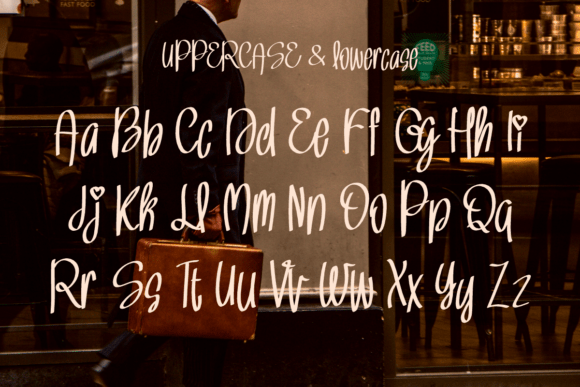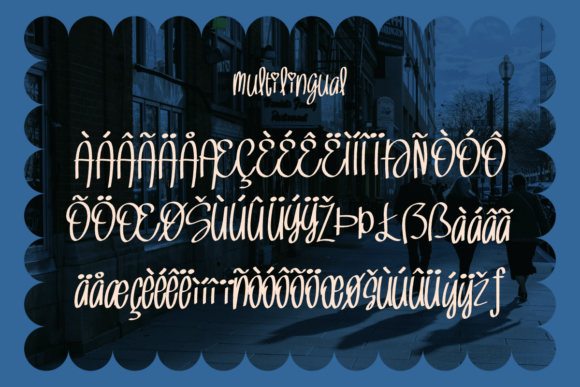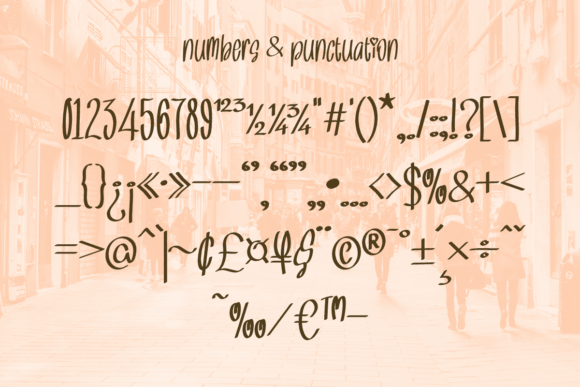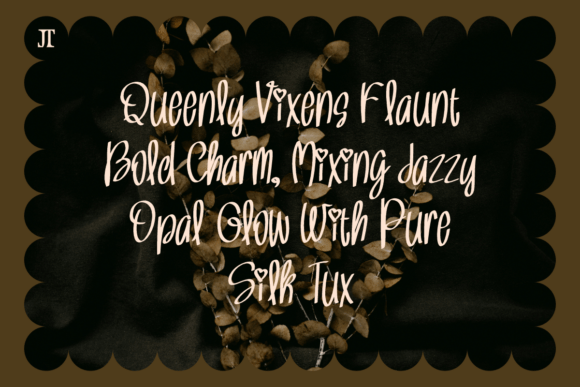
Introduction to Qaloura Valencia Font
Qabura Valencia is a romantic luxury script typeface designed with a feminine, elegant, and modern touch.
Featuring smooth calligraphic strokes and a natural flowing rhythm, this font delivers a refined and exclusive feel to any design project With 223+ glyphs including uppercase, lowercase, numbers, punctuation, and multilingual support, Qabura Valencia is perfect for premium branding, beauty logos, wedding invitations, packaging, and social media content that aims to look sophisticated and timeless.